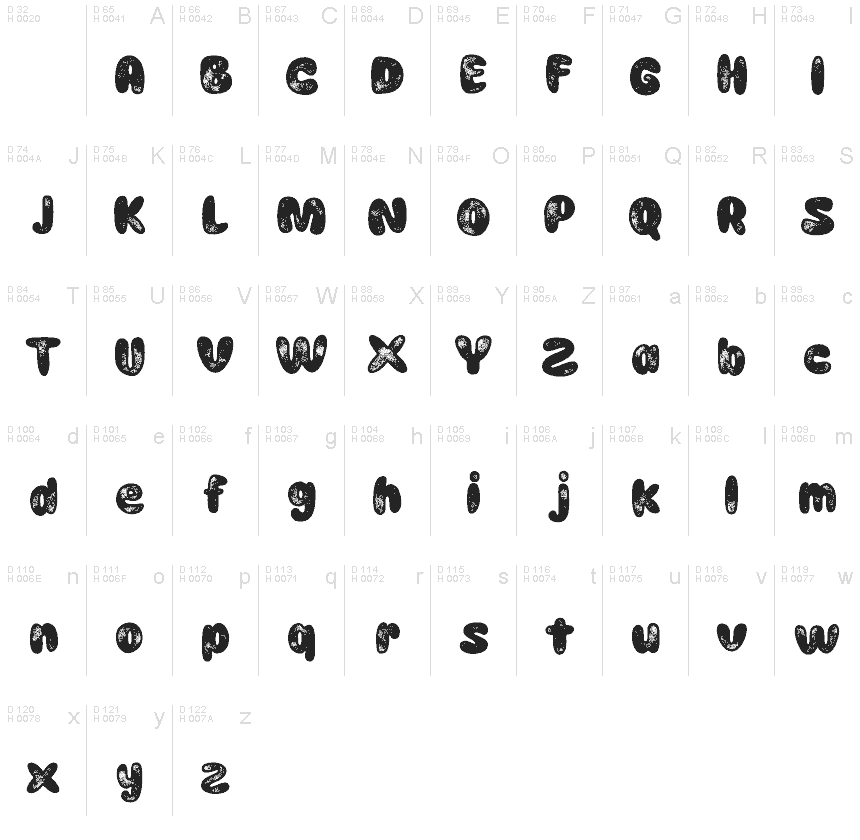
Monaz Stamp Regular Demo
Monaz Stamp font by Craft Supply Co. is a bold display font with an eroded and cartoon-like style. With its grunge texture, retro aesthetic, and casual vibe, it instantly creates an appealing vintage design that steals the show from the rest of the elements used.
Such an expressive form comes in handy for logos, packaging designs, labels and apparel designs in addition to posters and social media banners. And since this free font can be used for typography artwork projects by quote artists or standard typographers alike, a splendid outcome is always guaranteed!